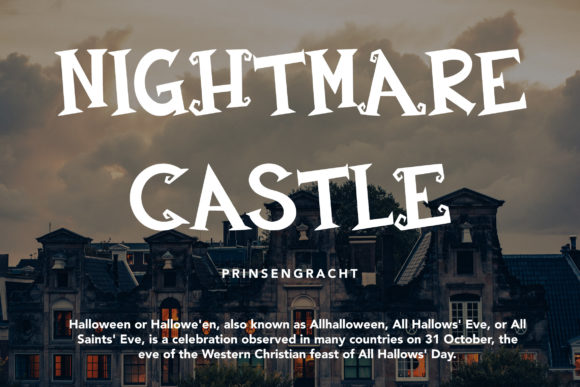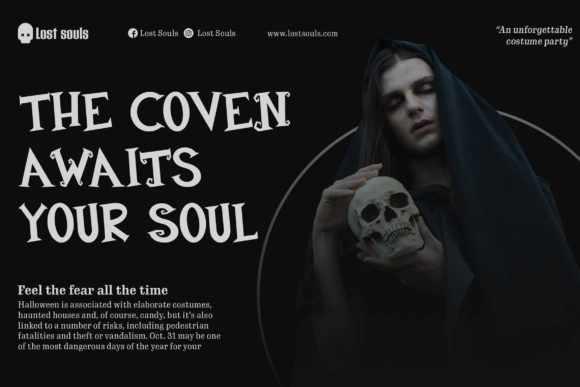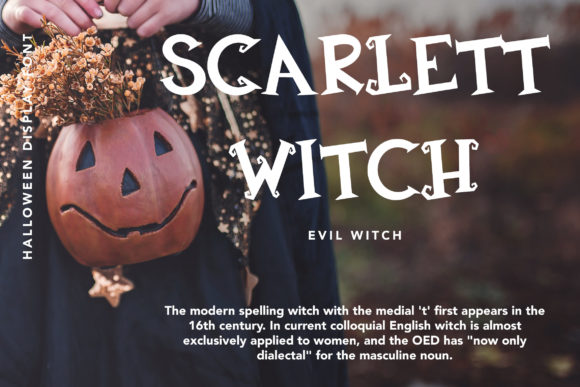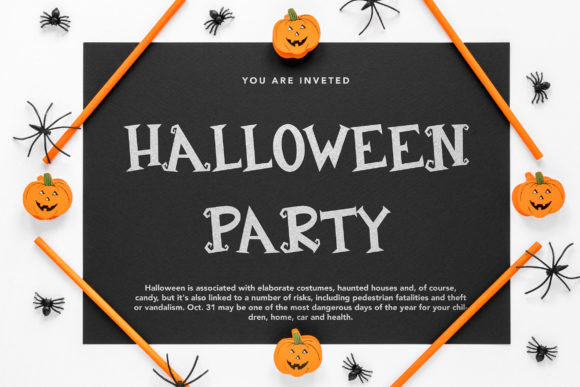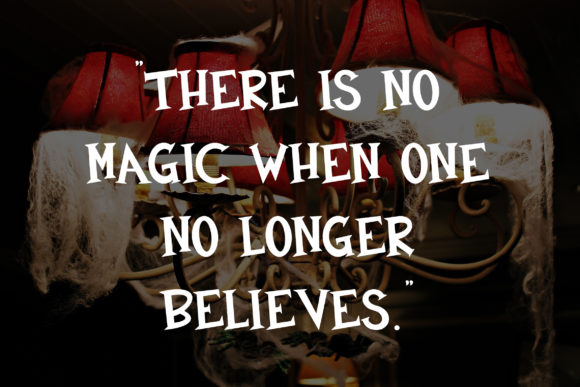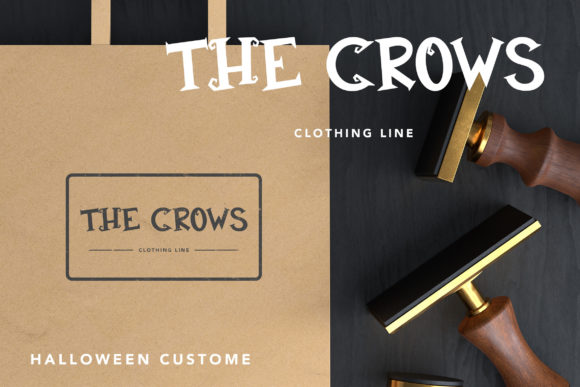
The Magic of Black Wizard Font: Bringing Your Creations to Life
Do you ever find yourself stuck in a creative rut, searching for the perfect font to bring your spooky project to life? I know I do! The thrill of the hunt, scouring through font collections, until you stumble upon that one special font that makes everything click. For me, that font is the Black Wizard Font.
This thick-lettered display font is a masterclass in creating an eerie atmosphere, perfect for any Halloween-related project or crafty idea. With its PUA encoding, accessing all of the glyphs and swashes is a breeze, giving you the freedom to get creative and experiment with different designs. Whether you’re a seasoned designer or a crafty enthusiast, the Black Wizard Font is an invaluable tool that will take your creations to the next level.
Black Wizard Font Key Features
- Font Family: Black Wizard is a fantasy font family designed to evoke a sense of mysticism and magic.
- Character Set: Includes a wide range of characters, including Latin, Cyrillic, and Greek alphabets, as well as various symbols and punctuation marks.
- Unique Characteristics: Features a unique blend of gothic and mystical elements, with intricate details and ornaments that add to its magical atmosphere.
Designer Review: Black Wizard Font
Overall, I’d say the Black Wizard Font is a solid choice for designers looking to add a touch of mysticism to their projects. ✨
- The font’s unique blend of modern and mystical elements makes it a standout choice for projects that need a touch of magic.
- The font’s readability is excellent, even at smaller font sizes, making it perfect for body text or headings.
- The font’s high contrast between the black and white elements creates a striking visual effect that’s sure to grab attention.
- ⚠️ The font may be too dramatic or over-the-top for some projects, potentially detracting from the overall message.
- ⚠️ The font’s unique style may not be suitable for projects that require a more conservative or traditional look.
In conclusion, the Black Wizard Font is a great choice for designers who want to add a touch of mysticism and magic to their projects. While it may have some limitations, the font’s unique style and excellent readability make it a solid addition to any design arsenal.
Tips for Getting the Most Out of Black Wizard Font
To get the most out of Black Wizard Font, try the following:
- Use it in bold or italic styles to add emphasis.
- Pair it with a contrasting background color to make the text stand out.
- Experiment with different font sizes to create visual hierarchy.
Black Wizard Font is commonly used for:
- Dark and mysterious branding.
- Magical or fantasy-themed designs.
- Edgy or avant-g
Fontin Sans
Fontin Sans is a modern sans-serif font that offers a sleek and sophisticated look. It’s ideal for use in corporate branding, editorial content, and digital products. Compared to Black Wizard Font, Fontin Sans has a more minimalist aesthetic and lacks the mystical, magical feel of the original font.
Abril Fatface is an elegant, high-contrast serif font that exudes luxury and sophistication. It’s perfect for use in high-end branding, advertising, and packaging design. Unlike Black Wizard Font, Abril Fatface has a more refined, vintage feel that’s ideal for projects that require a sense of classic elegance.
Playfair Display is a luxurious, high-end serif font that’s perfect for use in high-end branding, advertising, and editorial content. It’s ideal for projects that require a sense of sophistication and refinement. Compared to Black Wizard Font, Playfair Display has a more elegant, refined feel that’s less dramatic and attention-seeking.